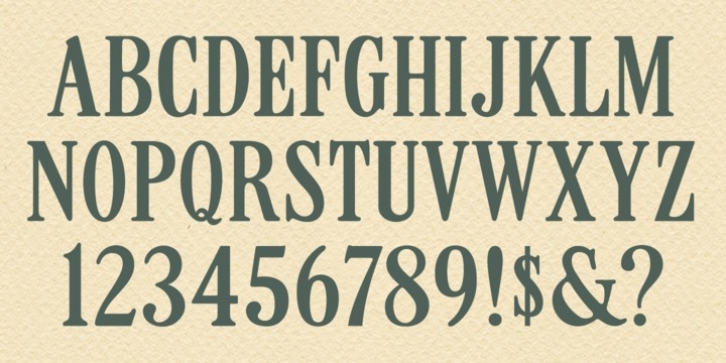
MPI Roman Condensed was published by mpressInteractive. MPI Roman Condensed contains 1 style.
Roman Condensed is a condensed, classic roman typeface. It has a medium contrast in stroke weight, slightly rounded serifs, and is easy to read. This version is based on a typeface from Showcard Machine Company, which was made specifically to be used with their proof presses.